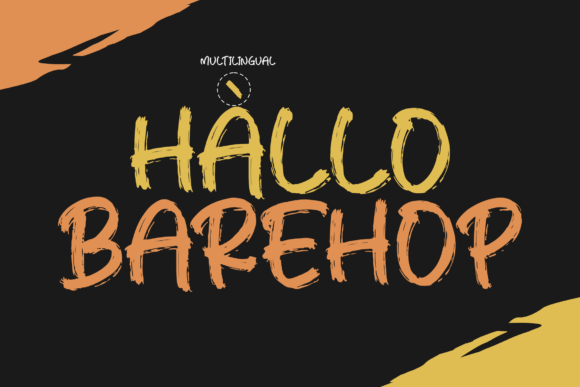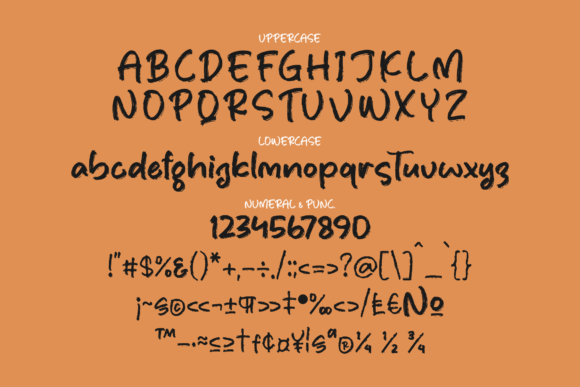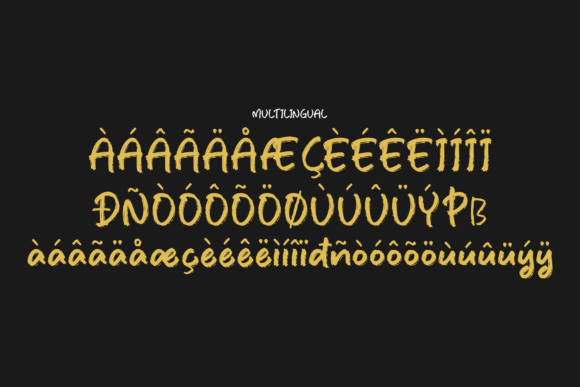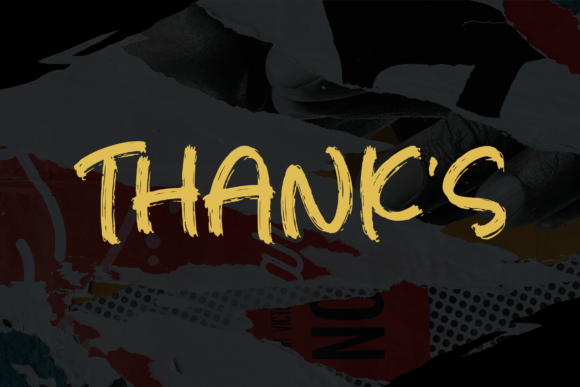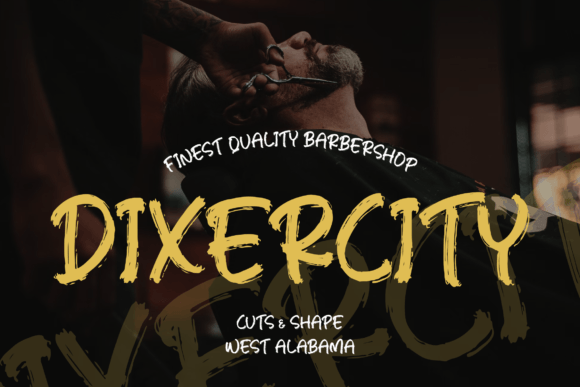
About Barehop Font
Barehop is a stylish and contemporary handwritten brush font that exudes a cool and trendy vibe. It serves as a versatile asset for your fonts’ library, promising to enhance any creative endeavor regardless of the topic. This font possesses the innate ability to elevate and modernize your designs, making it a must-have for those seeking a fresh and dynamic typographic solution.
Whether you’re working on a project related to fashion, technology, or any other theme, Barehop stands out as a powerful tool to infuse a sense of modernity and trendiness. Its brush-inspired strokes bring a unique flair to your text, creating an impact that resonates with the aesthetics of today’s design landscape.
Barehop transcends conventional boundaries, making it suitable for a wide range of applications. Its edgy and free-flowing style adds an element of spontaneity, allowing you to experiment with different design concepts and bring a contemporary touch to your creations.
Incorporating Barehop into your design projects not only adds a visually appealing aspect but also contributes to the overall mood and atmosphere. Its cool and trendy demeanor aligns seamlessly with the preferences of modern audiences, making it an ideal choice for those looking to stay on the cutting edge of design trends.
In summary, Barehop is not just a font; it’s a design asset that injects a cool and trendy vibe into your projects. Embrace its dynamic and handwritten brush style to breathe life into your creations, ensuring they stand out in today’s ever-evolving design landscape. Elevate your designs with the modern allure of Barehop and witness the transformative impact it brings to your fonts’ library.